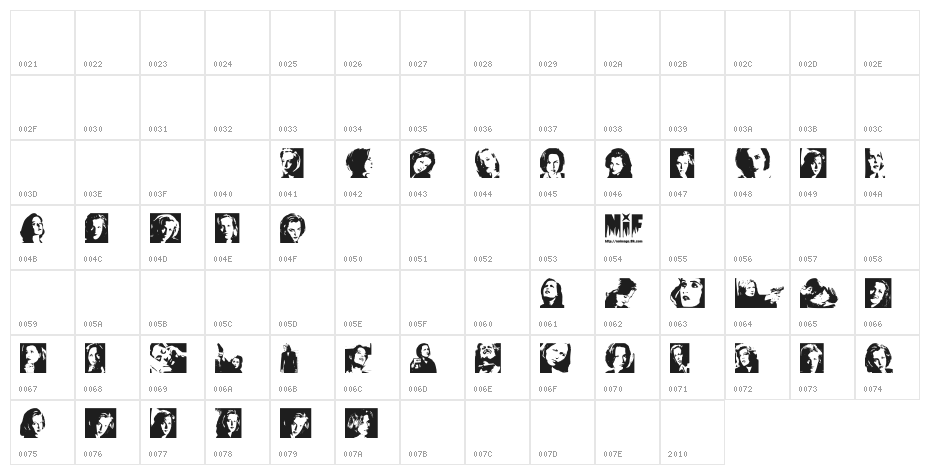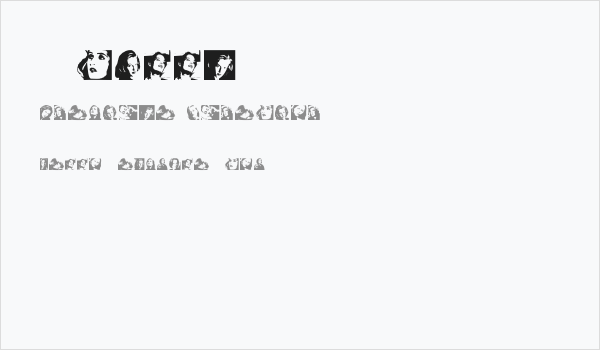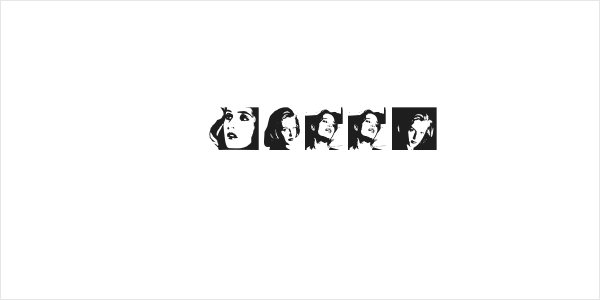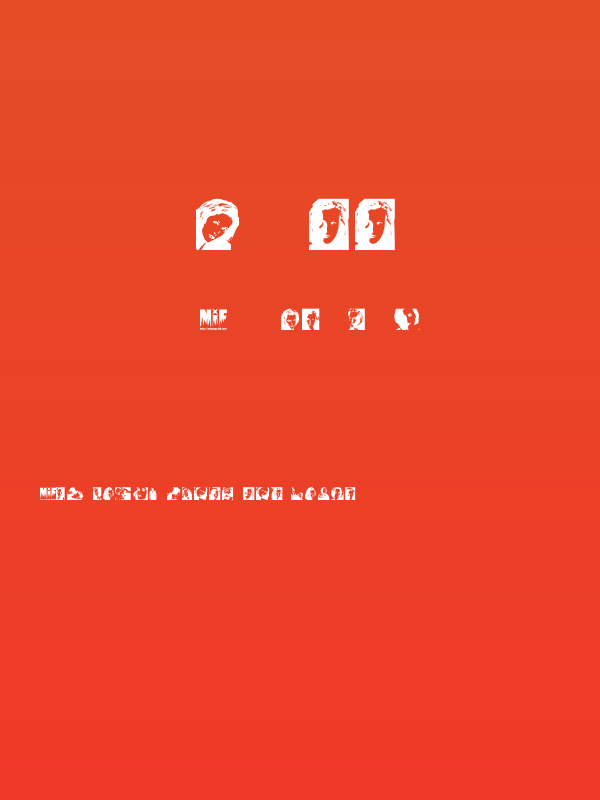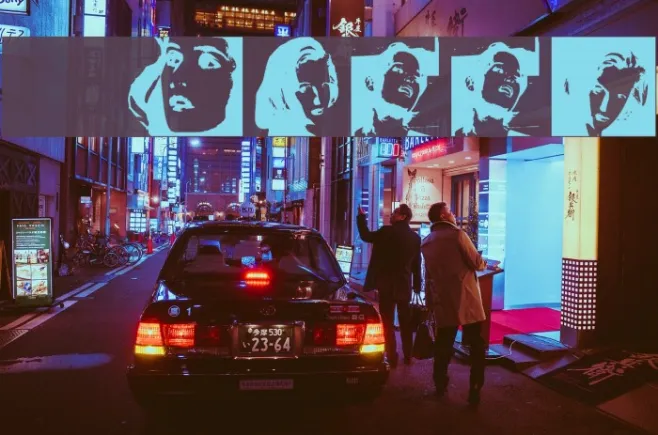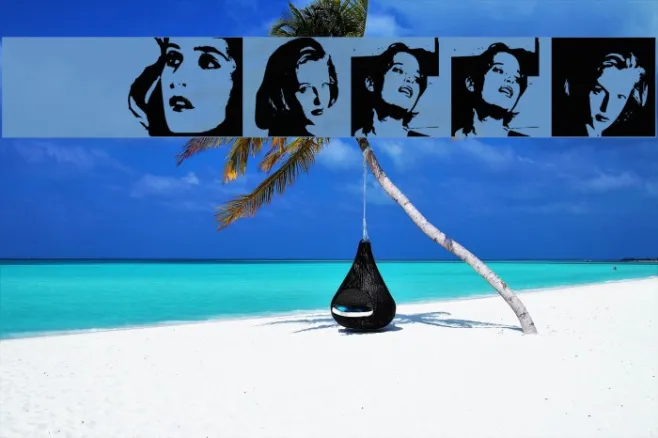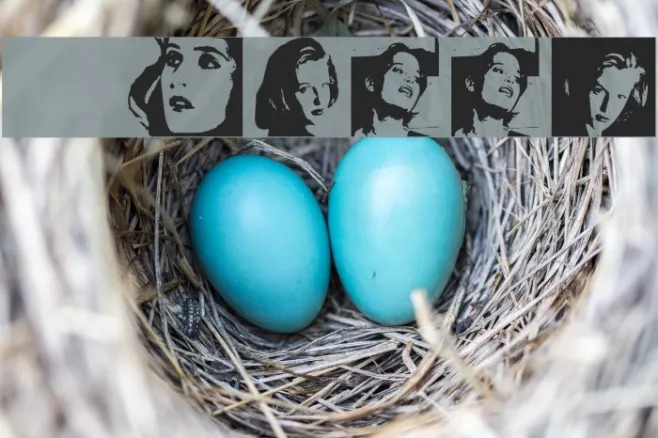
Scully Font
Scully Description
A highly decorative, display font where each character is represented by a black-and-white portrait illustration, creating a unique and visually striking effect. The glyphs are square and filled with detailed, high-contrast images.
| Overall Style | Decorative, Pop Culture, Thematic |
| Use Case | Headlines, Posters, Themed Graphics |
| Proposed Projects | Posters, fan art, themed event invitations, novelty headlines, pop culture projects. |